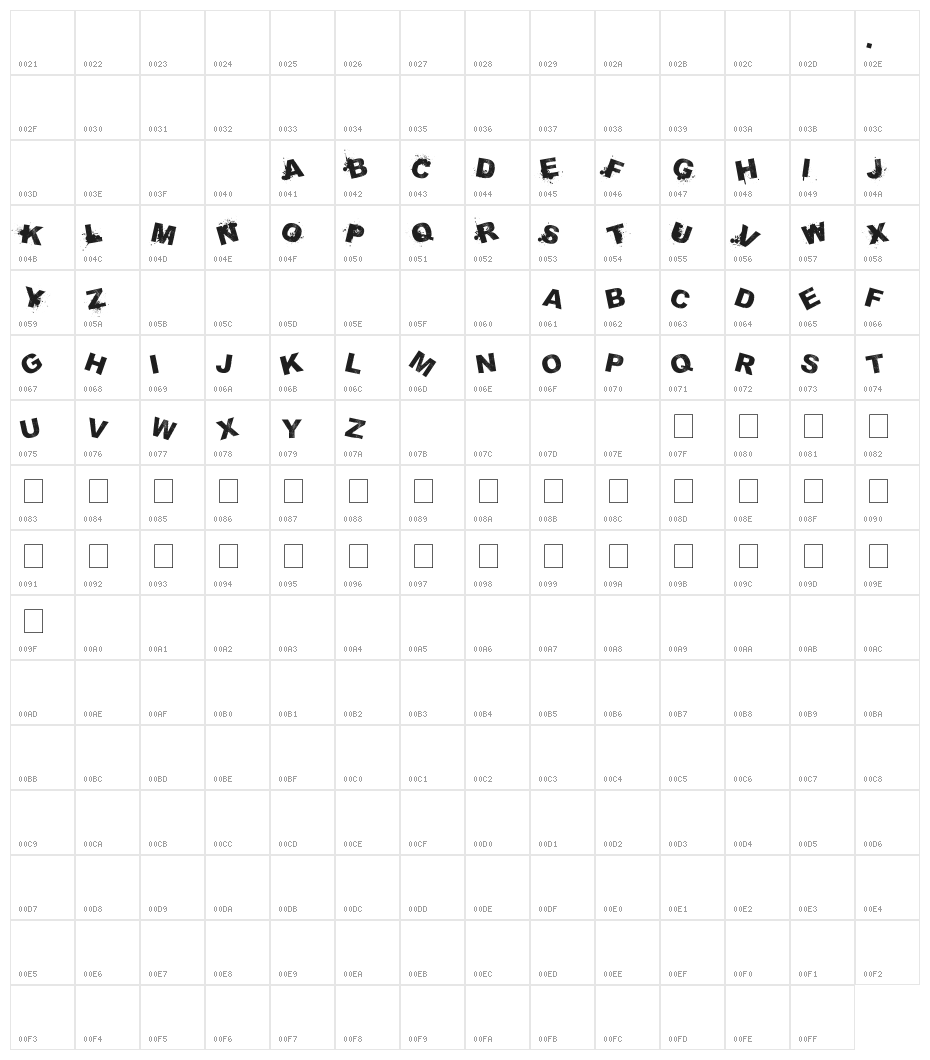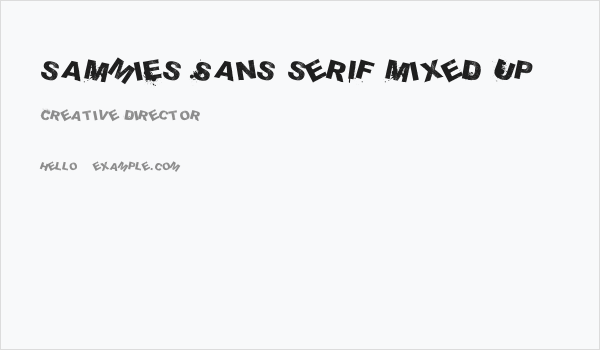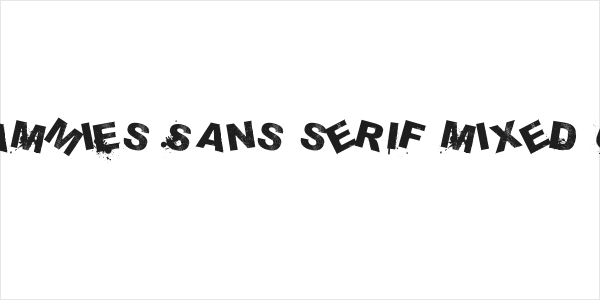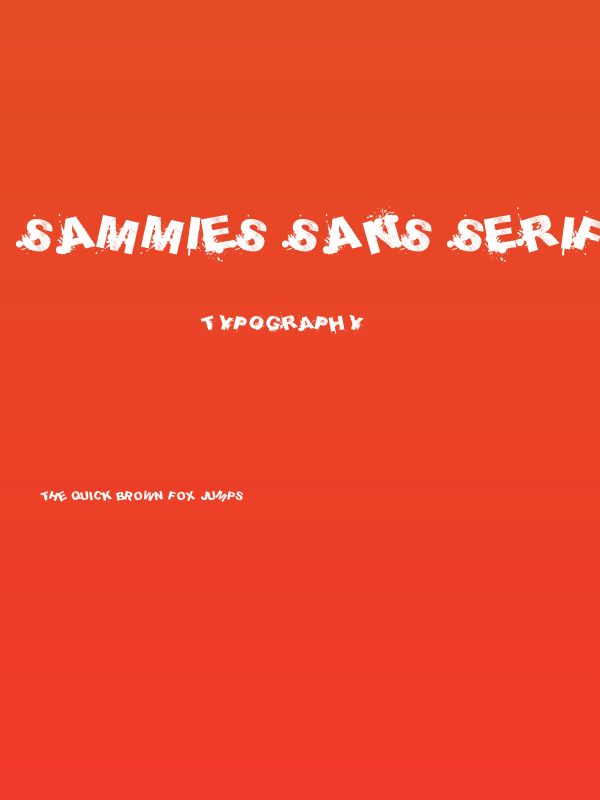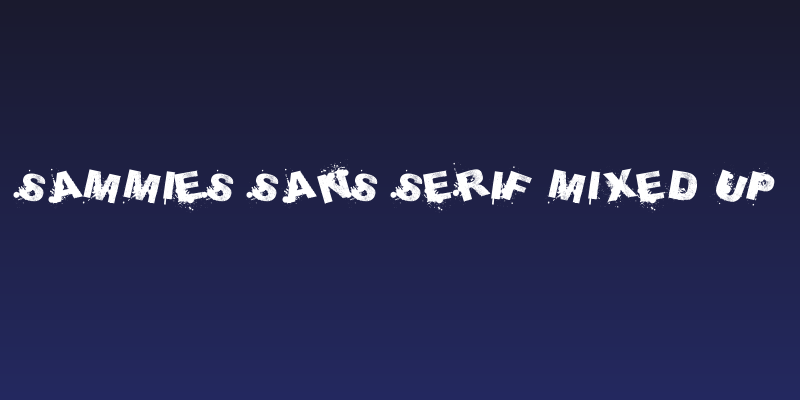
saMmiEs Sans serIf MixeD Up Font
saMmiEs Sans serIf MixeD Up Description
This font features a bold and playful style with a distressed, grunge effect. The letters are uppercase and exhibit a mix of sharp angles and rounded edges, creating a dynamic and energetic appearance. The irregularities and splatter-like textures give it a rebellious and urban feel, making it stand out in any design. The font's unique character is enhanced by its uneven baseline and varying letter widths, adding to its informal and edgy aesthetic.
| Overall Style | Urban, Grunge, Playful |
| Proposed Projects | Ideal for streetwear branding, music album covers, graffiti art, and edgy poster designs. |